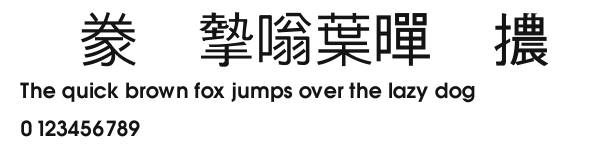
• Font Name: 書法家中黑體
• Full Font Name: 書法家中黑體
• Character Count: 14166
About 書法家中黑體.ttf
書法家中黑體.ttf is a modern, elegant sans-serif font designed for ultimate readability and visual harmony. Perfect for branding, headlines, web design, and print materials.